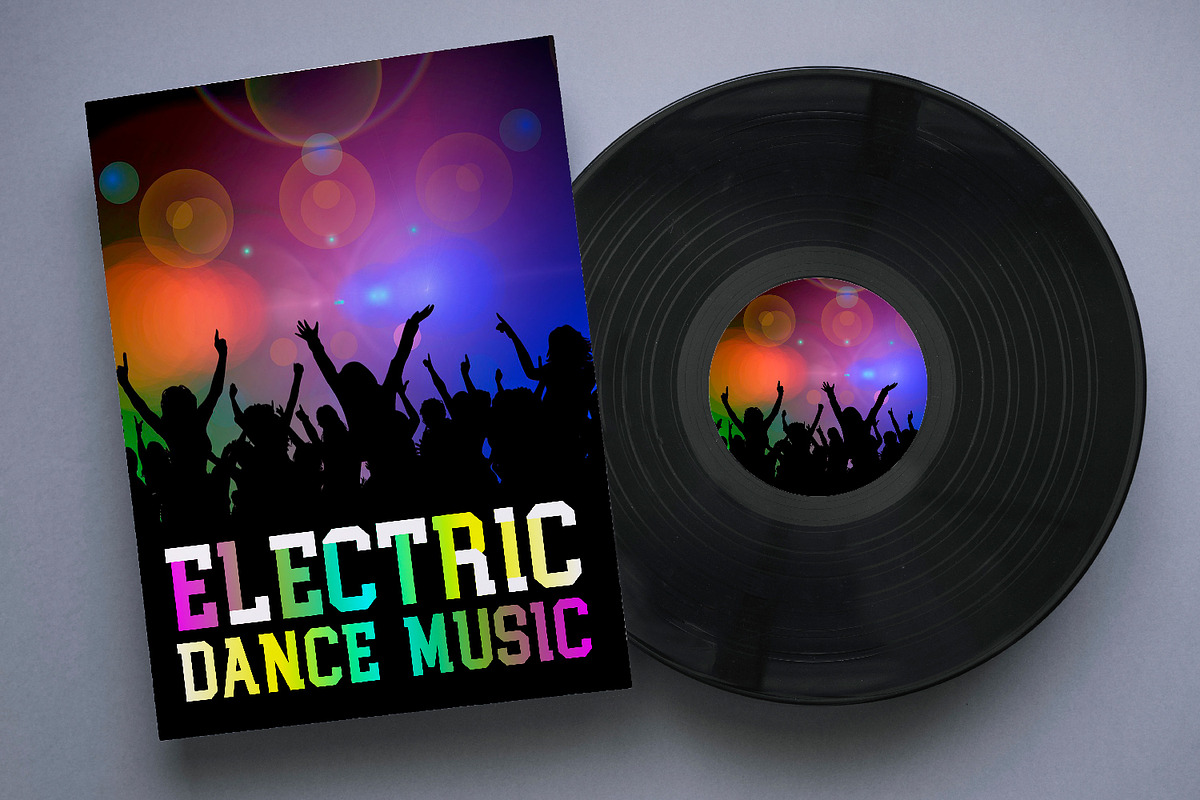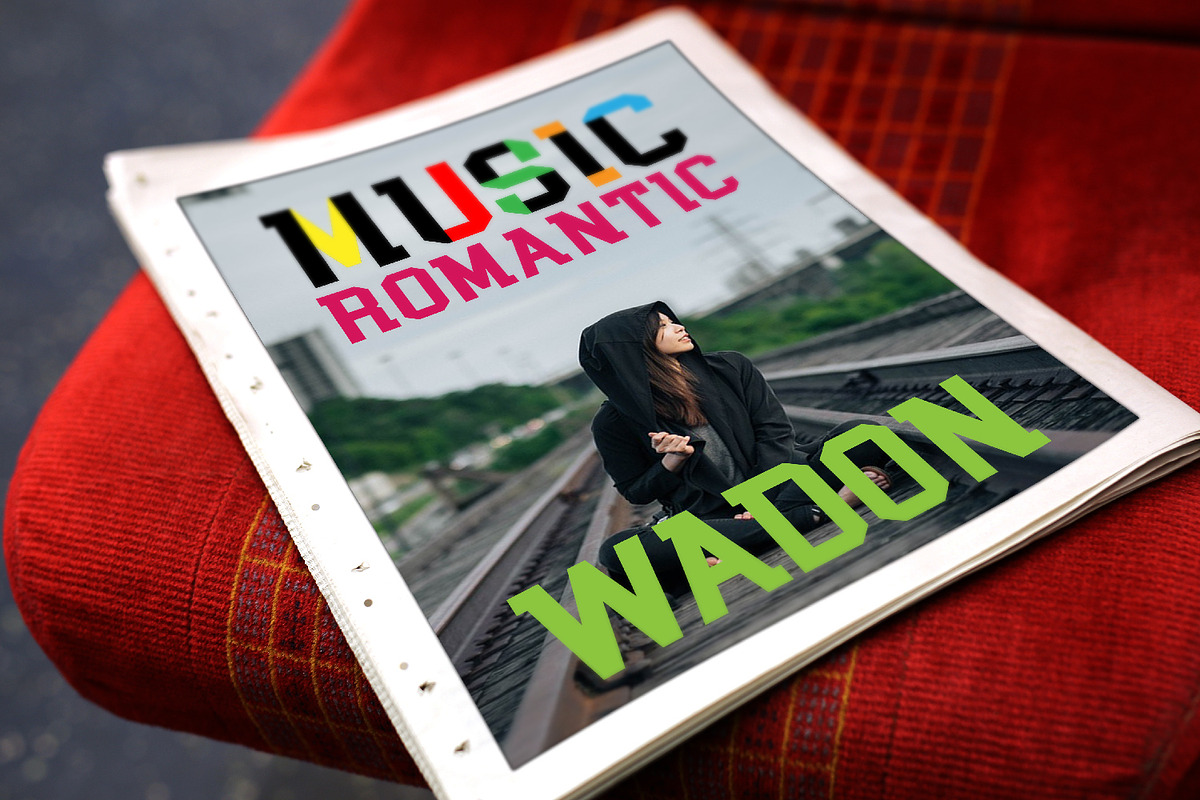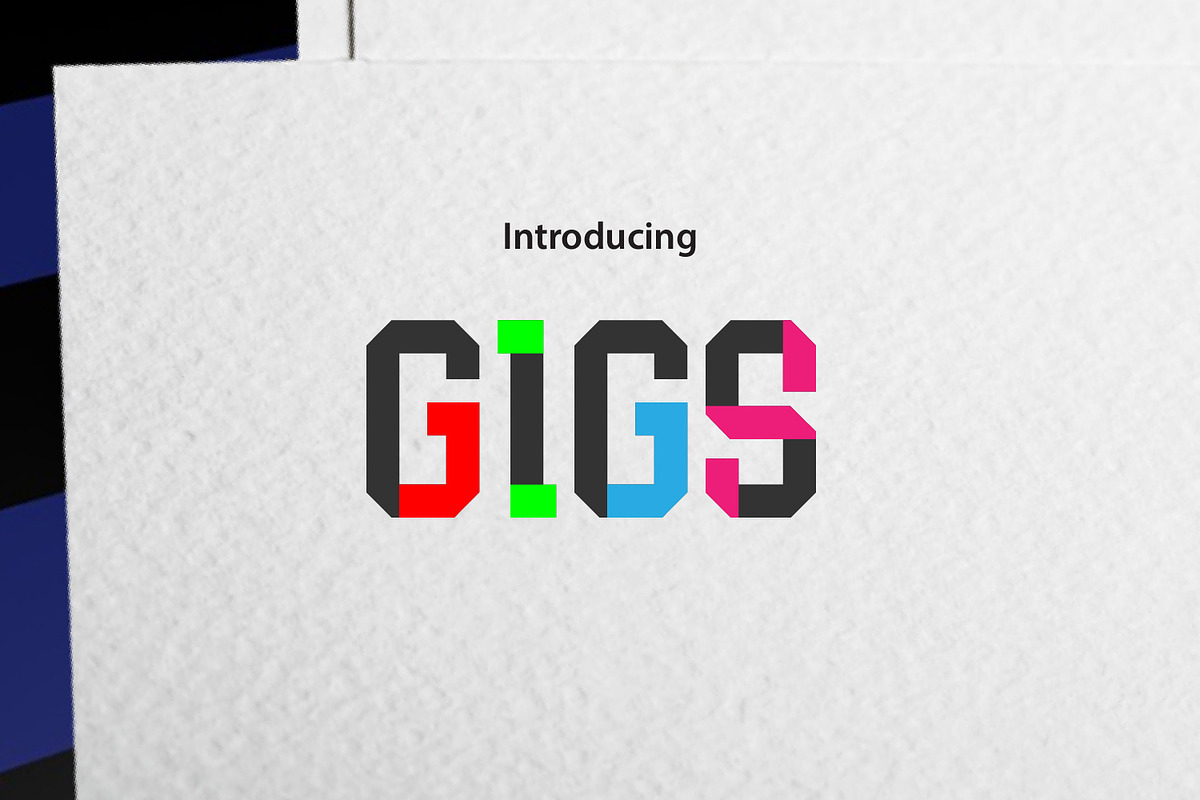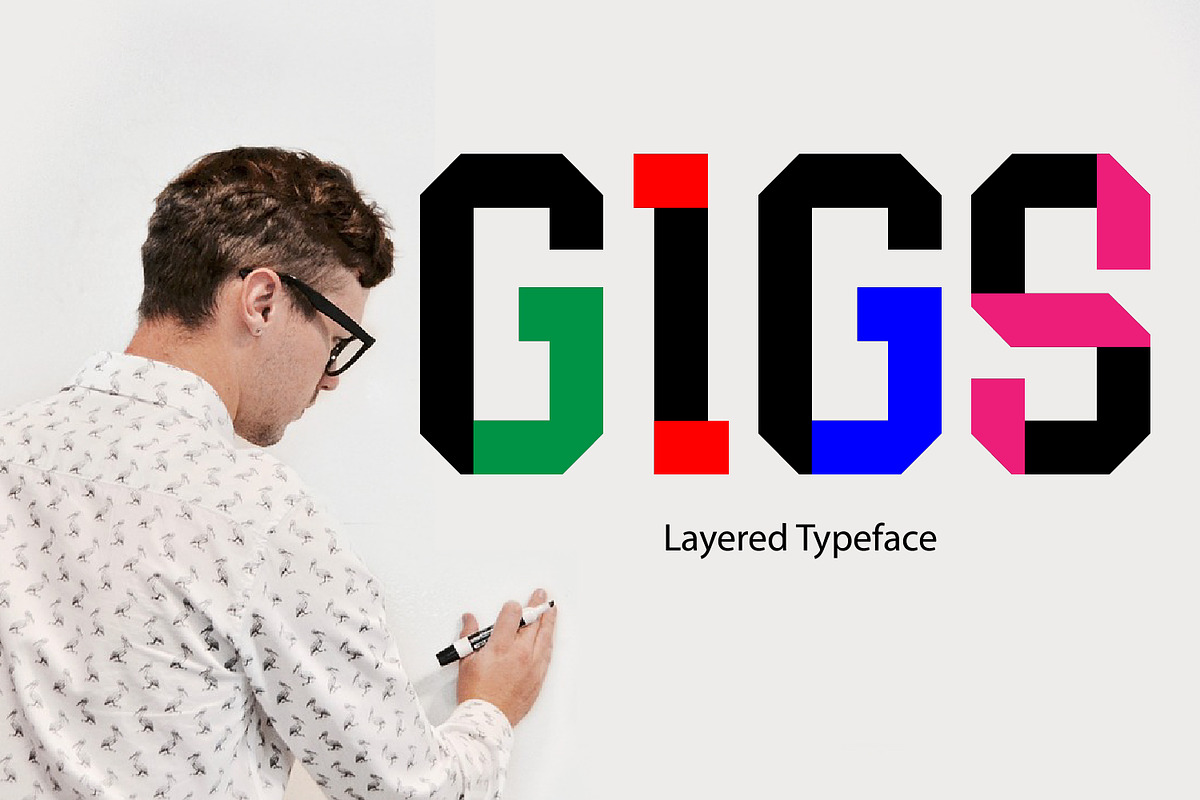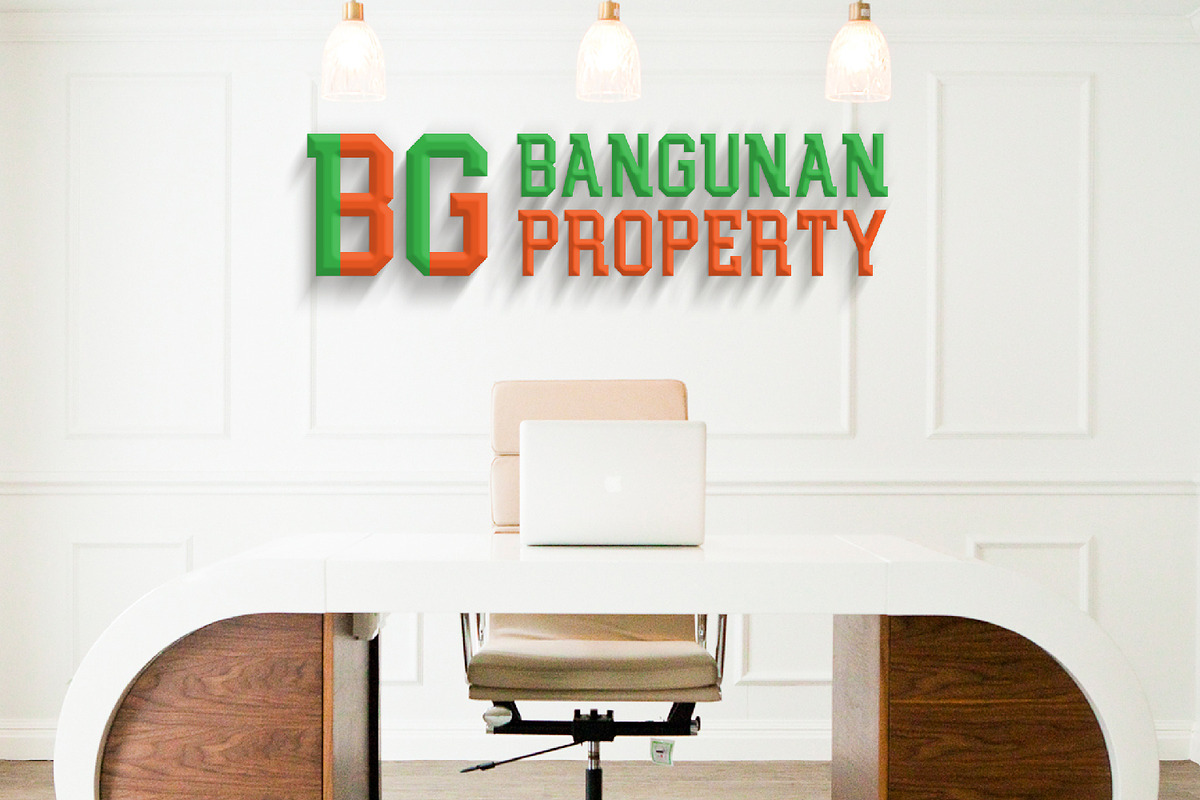
GIGS
GIGS is a ‘semi’ slab font, because i have reduced the serifs to the minimum to keep the air between the characters. GIGS is a bold display layered typeface and awesome.